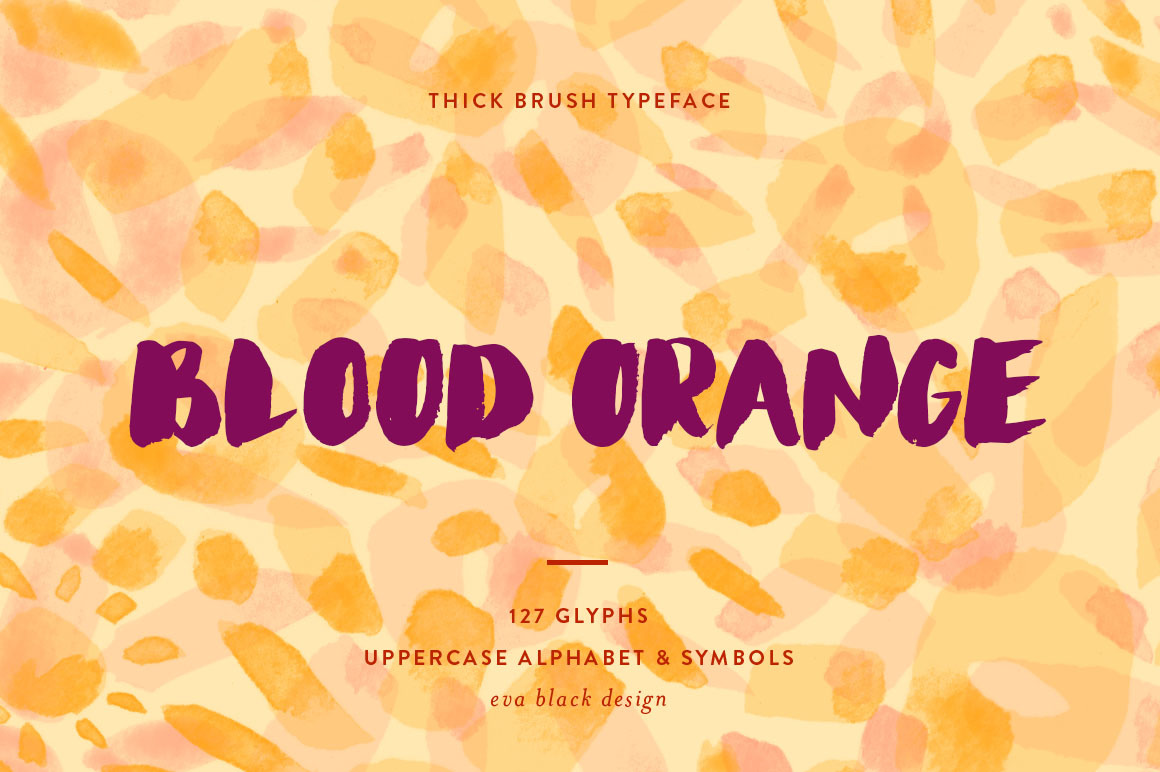
Blood Orange Brush Font
- Thick brush font, that showcases natural brush line weight variations. Entire alphabet is uppercase style.
- Ink & Brush Lettering Style.
- Perfect for logos, invites, website headers, photo overlays, etc.
- 127 total glyphs.
- Default Character Set A-Z, a-z.
- Numbers & Punctuations.
- Contextual & Stylistic Alternates.
- Stylistic Set 01.
- All characters are uppercase style, take advantage of swapping capital and lowercase letters for even more variation.